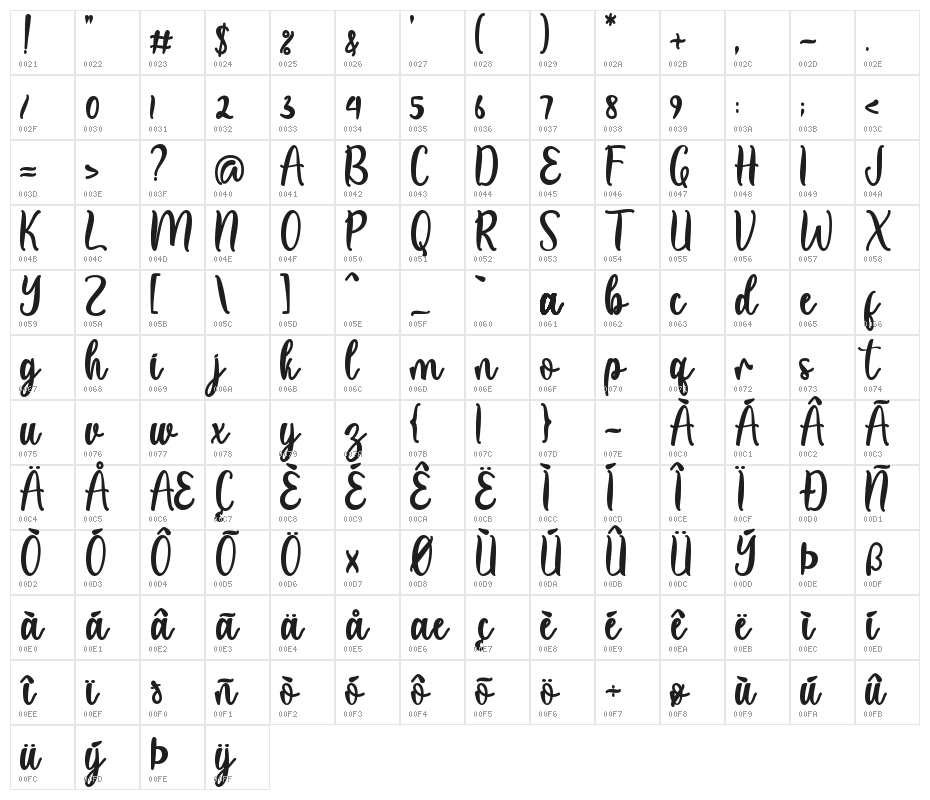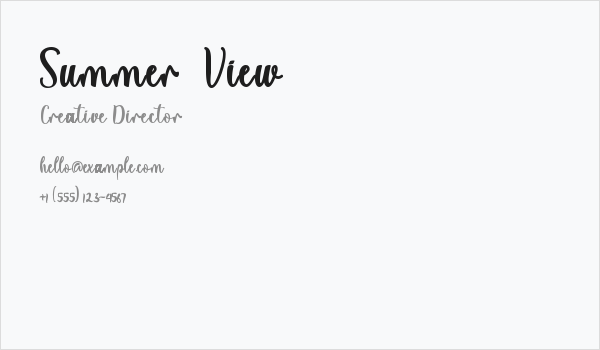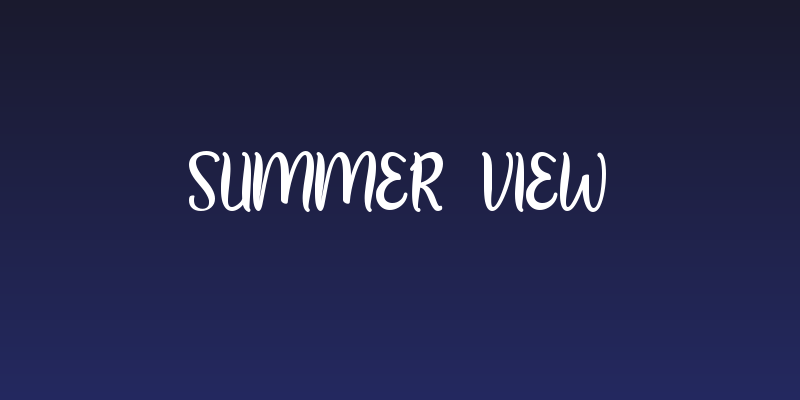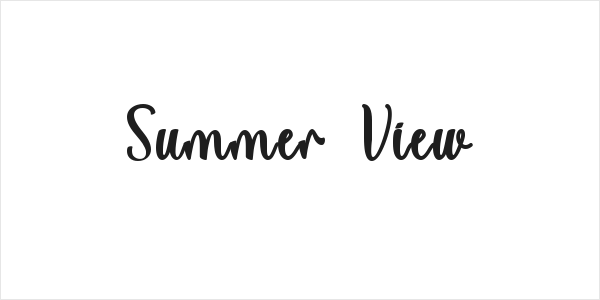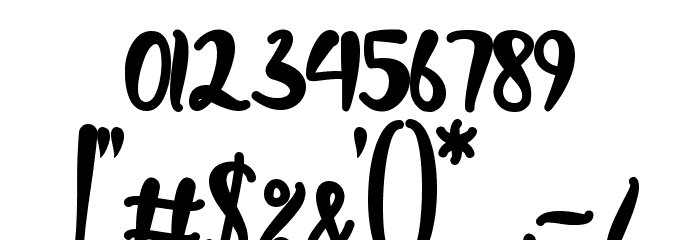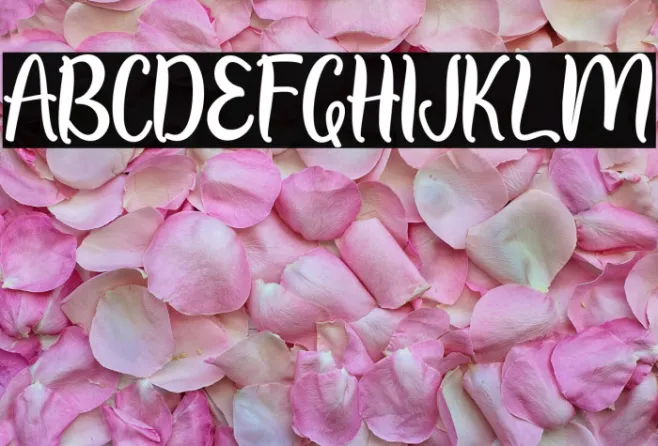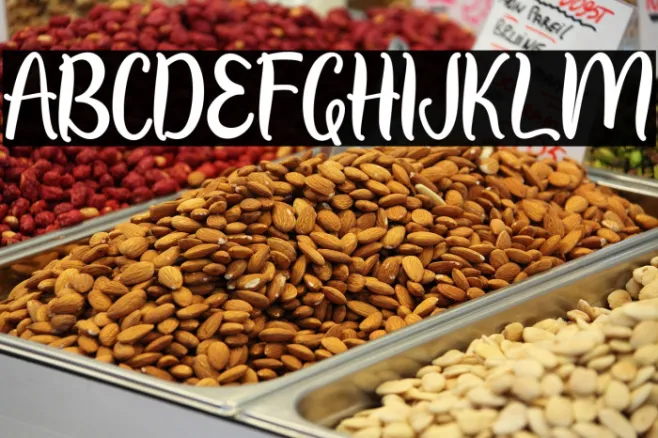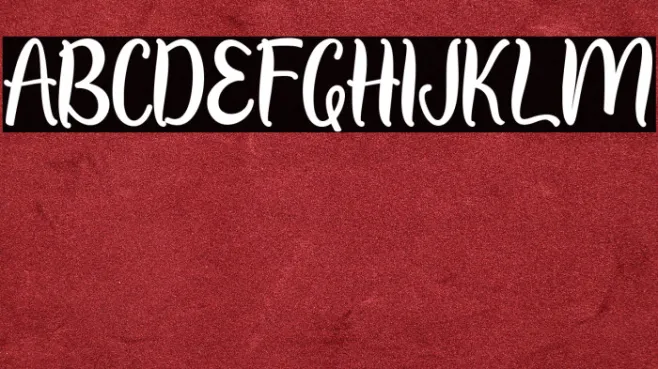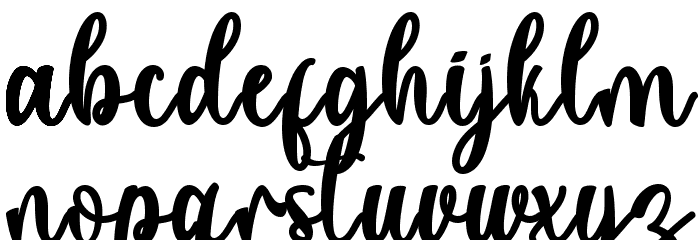
Summer View Font
Summer View Description
This font features a playful and energetic script style with a handwritten appearance. The letters are connected with smooth, flowing curves, giving it a casual and friendly look. The uppercase letters are bold and slightly larger than the lowercase, which are more rounded and compact. The numerals and special characters maintain the same lively style, ensuring consistency across all characters. The strokes are moderately thick, providing good readability while retaining a sense of elegance and movement.
| Proposed Projects | Ideal for greeting cards, invitations, personal branding, and social media graphics. |